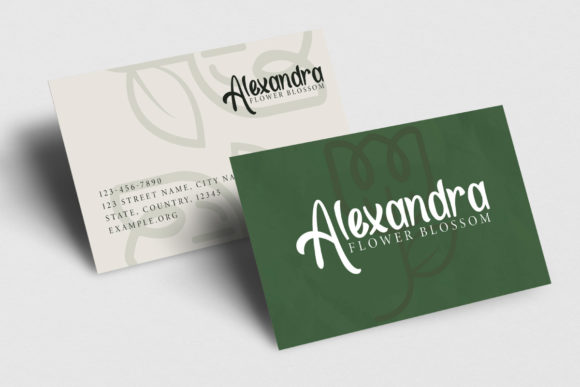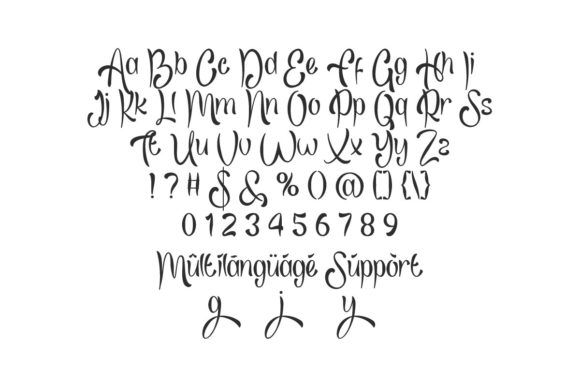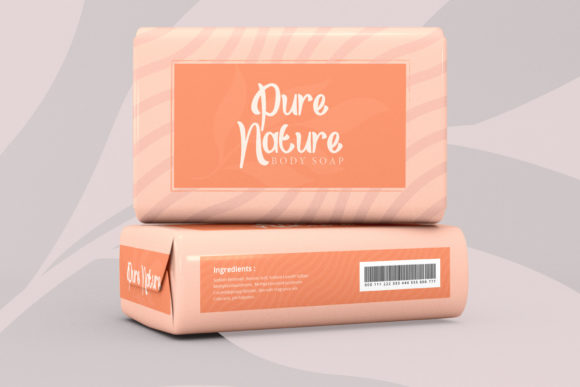
Introduction to Senjakala Font
Senjakala is a trendy and chic handwritten font.
It is perfect for product packaging, branding project, magazine covers, social media, wedding, or just used to express words above the background .
Senjakala Font offers exceptional quality and versatility, making it a valuable addition to your design toolkit. Whether you’re creating for personal projects or commercial use, Senjakala Font delivers professional results.